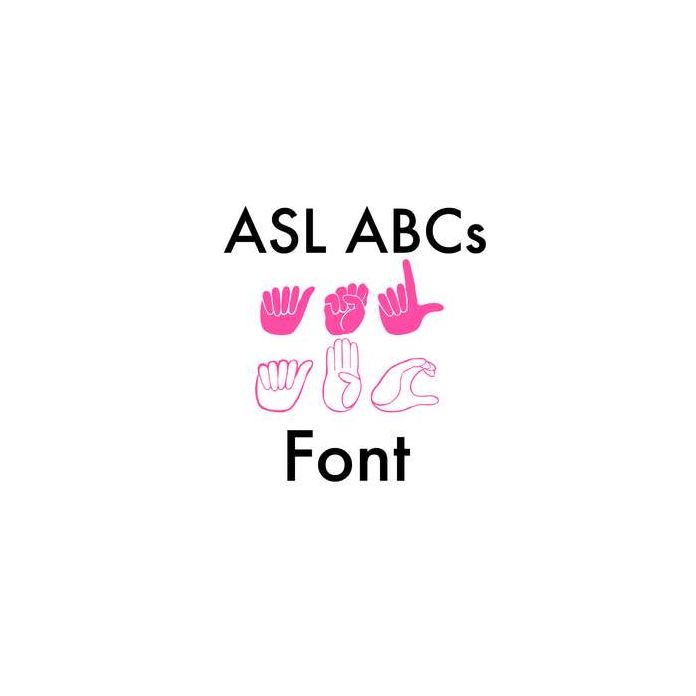
ASL ABCs includes two different styles of the American Sign Language alphabet, solid and outline. It also includes numbers 1-10. Please note that '0' is used for the sign for '10'.